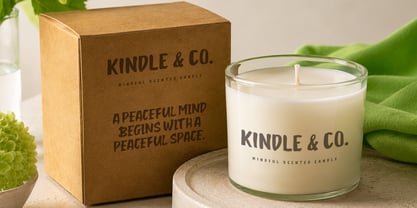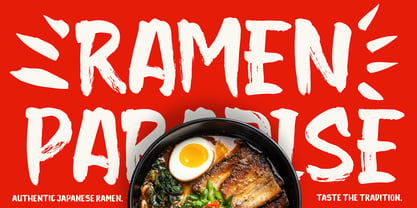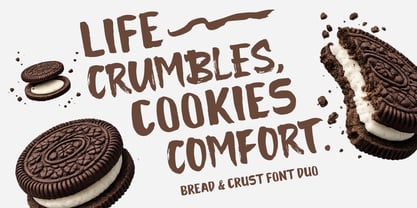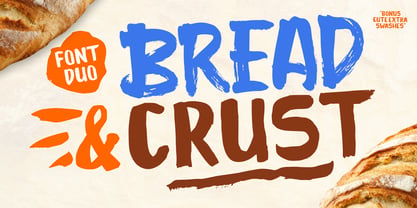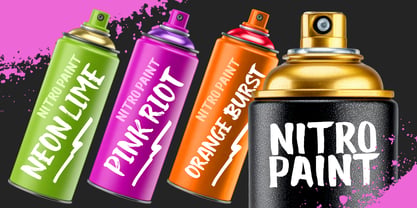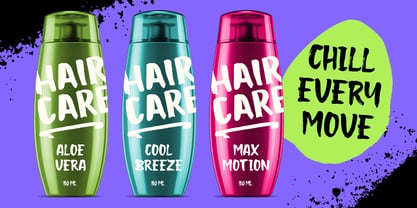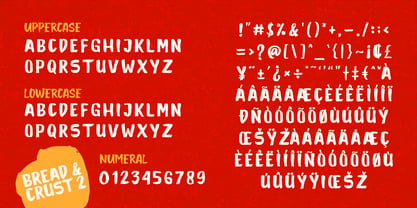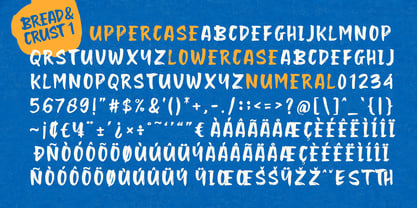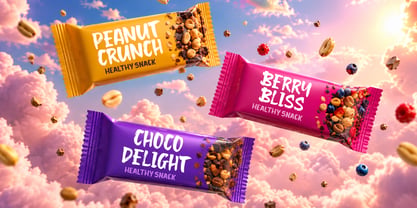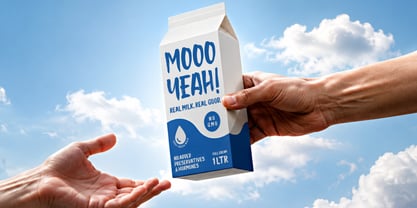
Bread & Crush
Die Schriftfamilie Bread & Crush wurde von Mauli Zari entworfen und von Dhan Studio veröffentlicht. Bread & Crush enthält 3 Stile und Familienpaketoptionen. Mehr über diese Familie
Bread & Crust 🥐 is a bold handcrafted font duo with authentic brush textures, perfect for branding, packaging, advertising, editorial design, social media, merchandise, logos, labels, and creative projects across a wide range of industries.
Designed with a natural hand-painted feel, this versatile duo works beautifully for both modern and rustic designs, delivering a warm, energetic, and memorable visual impact.
Features:
• Font Duo + Extra Swashes
• Uppercase & Lowercase
• Numbers & Punctuation
• Multilingual Support
• PUA Encoded
Whether you're creating bold headlines, distinctive branding, or eye-catching packaging, Bread & Crust gives your projects an authentic handcrafted character that stands out.